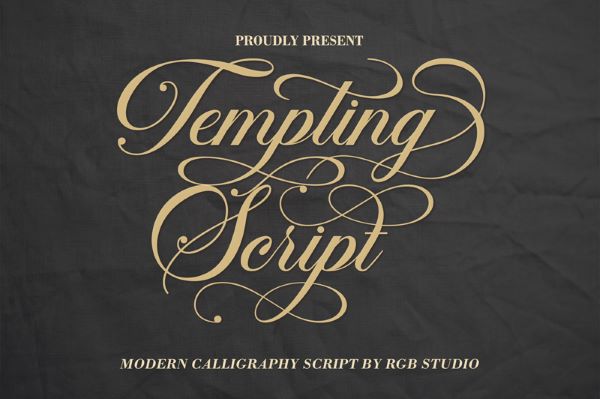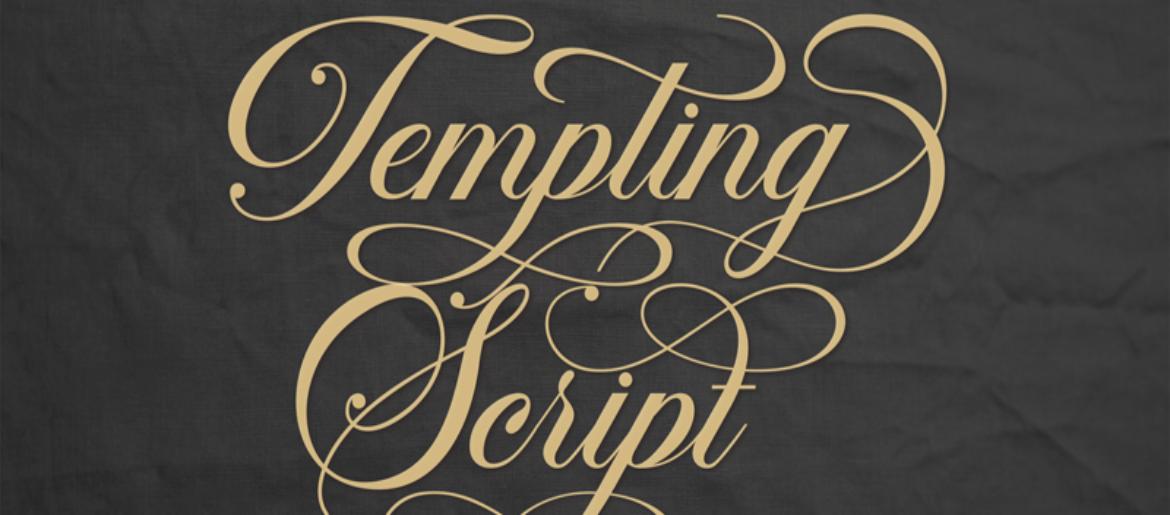
Tempting Font
Tempting Font is a handwritten script inspired by classic copperplate lettering with a modern decorative touch. Designed with high detail and elegant flourishes, it delivers a refined, luxurious feel. Its graceful curves and stylish strokes make it perfect for logos, invitations, branding, and designs that require a timeless yet contemporary elegance.
➤ Font Name: Tempting
➤ Designer: RGB Studio
➤ Style: Calligraphy